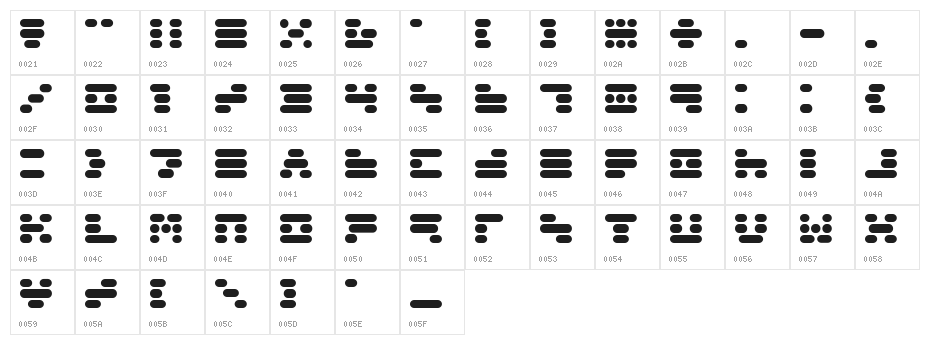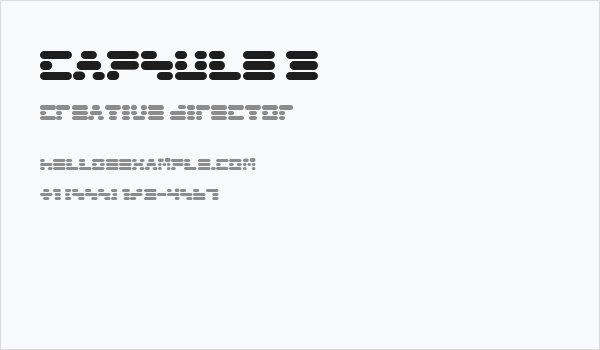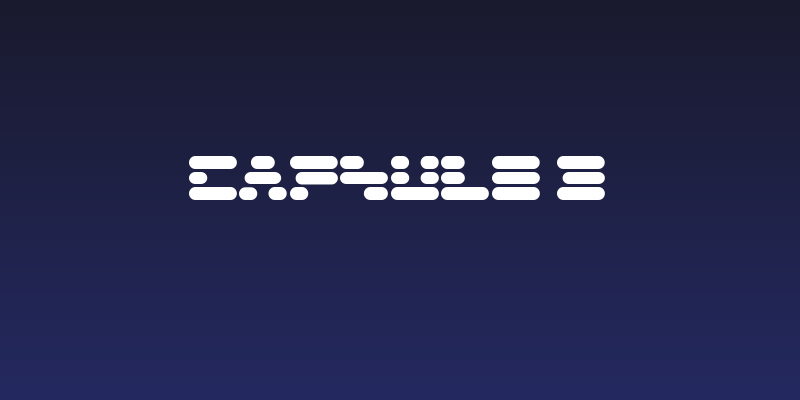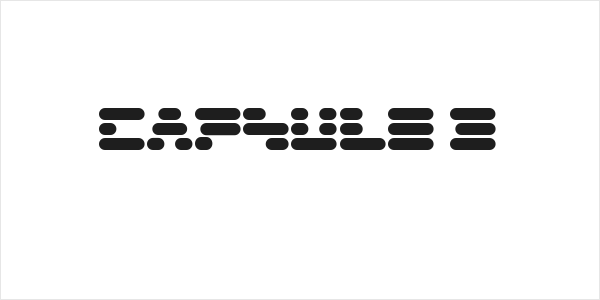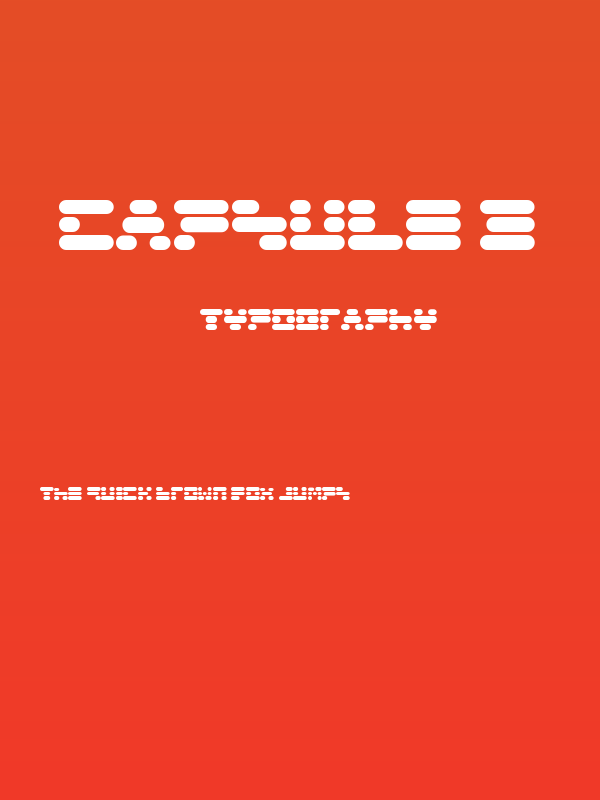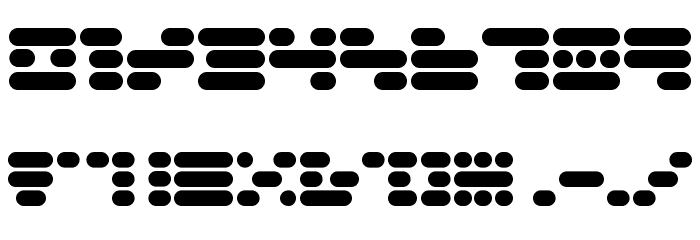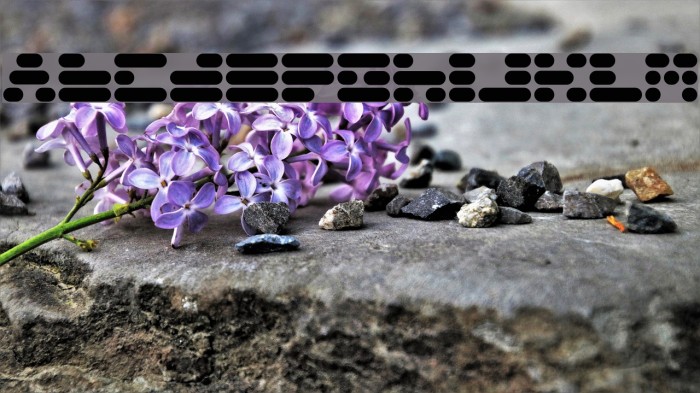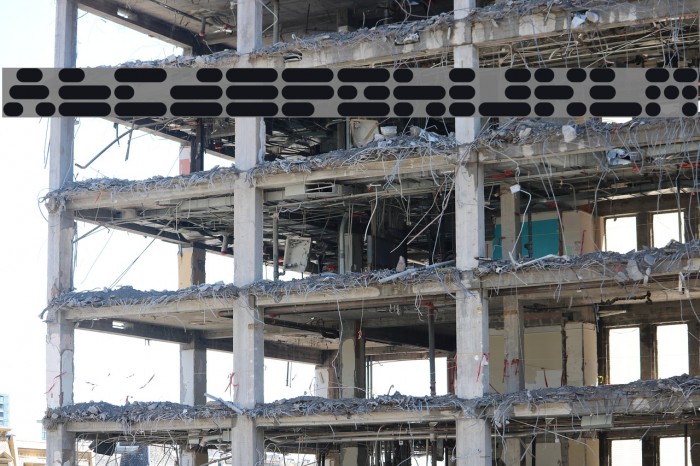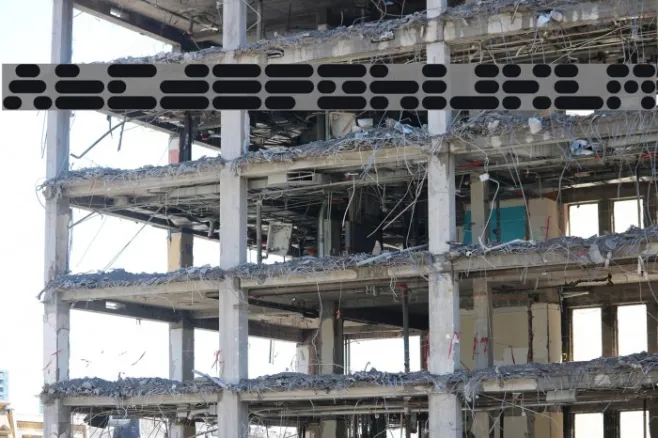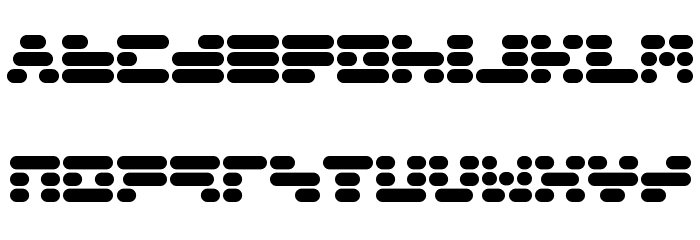
Capsule 3 Font
This font features a futuristic and geometric design, characterized by its unique capsule-like shapes forming each letter and number. The characters are composed of rounded, elongated dots that create a sense of rhythm and movement. This design gives it a distinct, modern appearance that stands out in any context. The font maintains a consistent weight throughout, with a bold and solid presence. Its innovative style is perfect for projects that require a cutting-edge and tech-savvy look.
| Proposed Projects | Ideal for sci-fi themed designs, technology branding, video game titles, and modern art projects. |